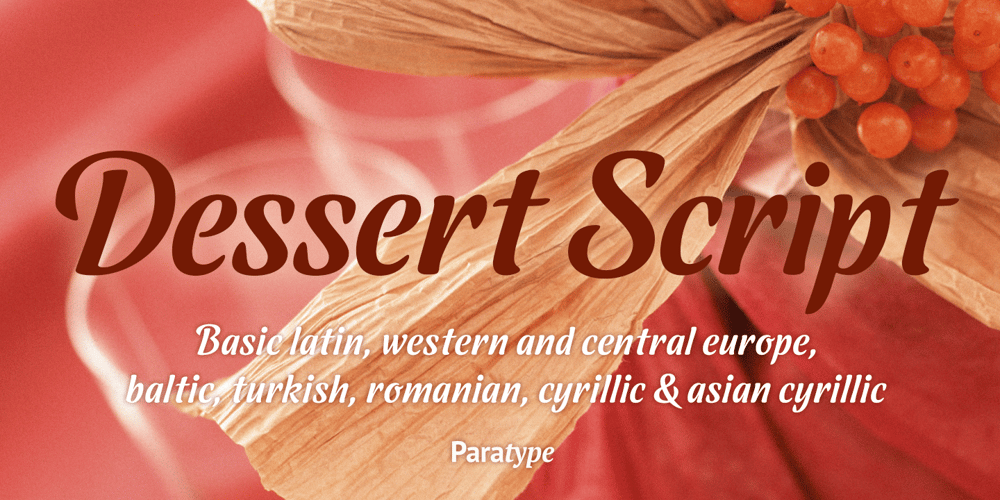
Dessert Script
Dessert Script font
Dessert Script Font Family was designed by Alexander Lubovenko and published by ParaType. Dessert Script contains 1 styles and family package options. Dessert Script is a display font in one style based on flat brush calligraphy. It combines the smoothness of contours, overall dynamics of text setting, open and friendly nature. Dessert Script is good for short inscriptions, greetings, food packaging and menus. The typeface was designed by Alexander Lubovenko and released by Paratype in 2015.